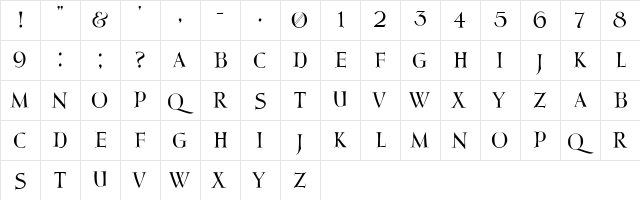
Moderno Regular
Design Context for Moderno Typeface
Moderno takes a measured approach to typography — its balanced proportions and neutral character make it a reliable workhorse for both digital and print work.